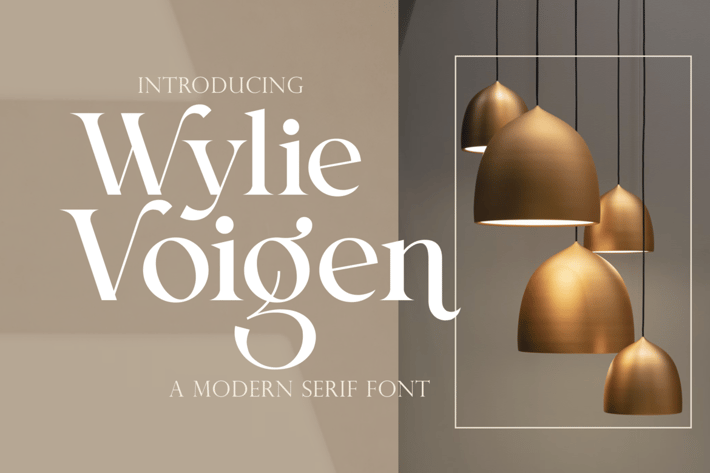
Retro Serif Font
Looking for a serif font that will make your brand stand out?
Introducing Wylie Voigen – A Modern Serif Font.
A mix of culture and style, Wylie Voigen is excellent for showing what makes your business unique.
Wylie Voigen allows you to make stunning web pages, apps, ads, merchandise, printed cards, and anything else your business needs.
Multilingual & Ligature Support
Full sets of Punctuation and Numerals